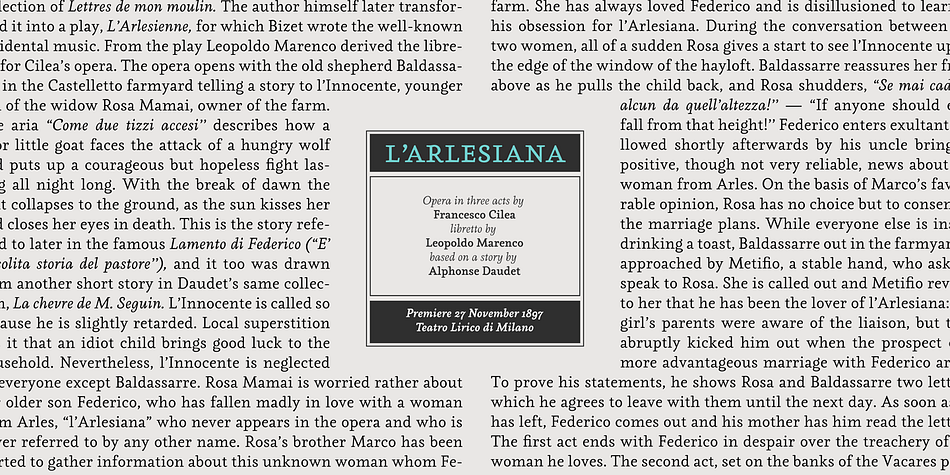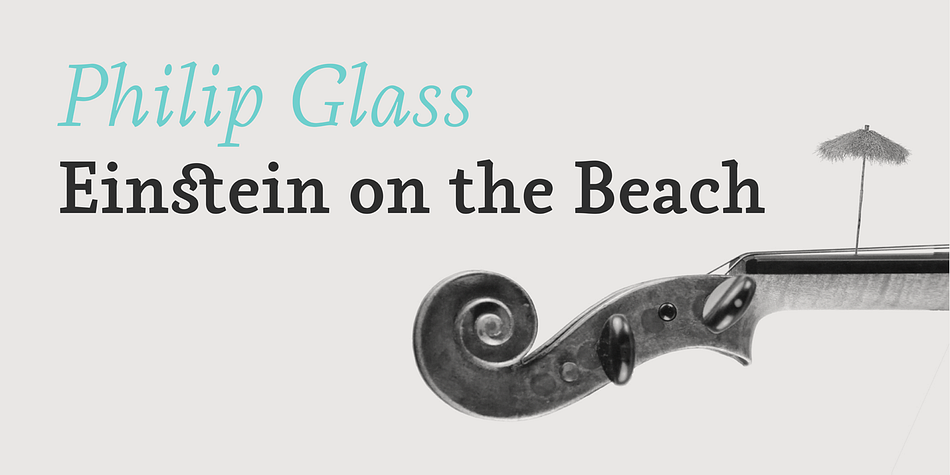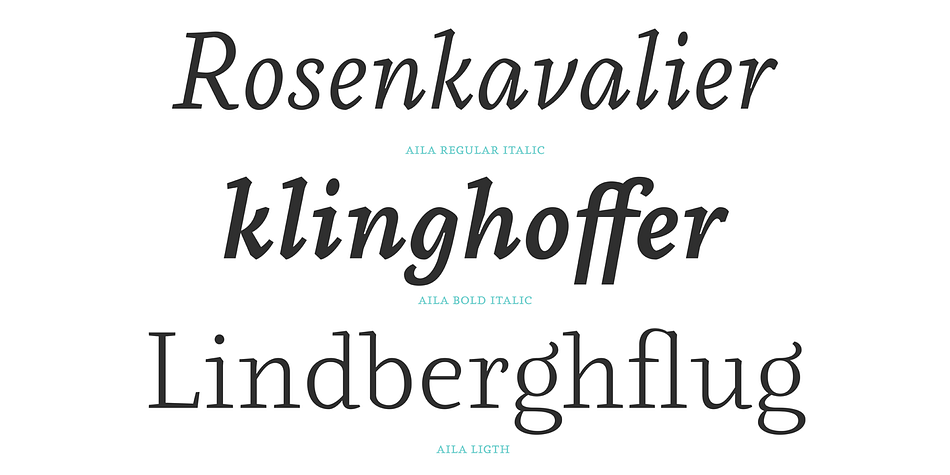
Aila
Designed by Francis Requena, Aila is a slab serif font family. This typeface has eight styles and was published by TipoType.
Aila is a surprising slab serif built on the structure of a realistic Roman, but with unique organic features that make this typeface an exercise in tension between structure and rhythm. This expressive tension is displayed in heavier styles (Aila Bold and Aila Black), and is strongly evident in the italic forms. Aila’s italics offer an interesting re-interpretation of the cursive ductus of classic italic forms, to offer rhythmic and swift variants, which are the ideal counterpoint to the regular set in body text.
Each style of the Aila family offers an extended character set specially designed for editorial design projects.